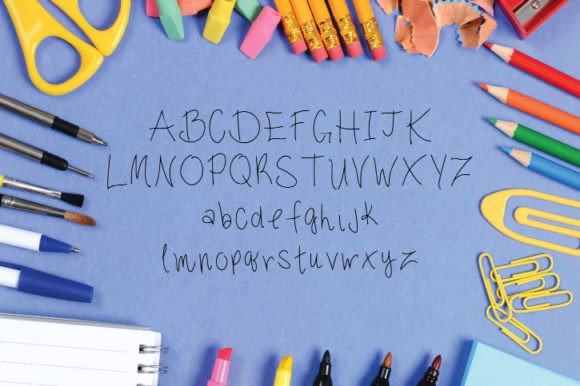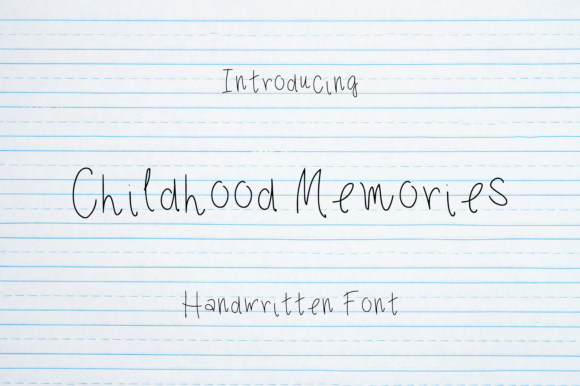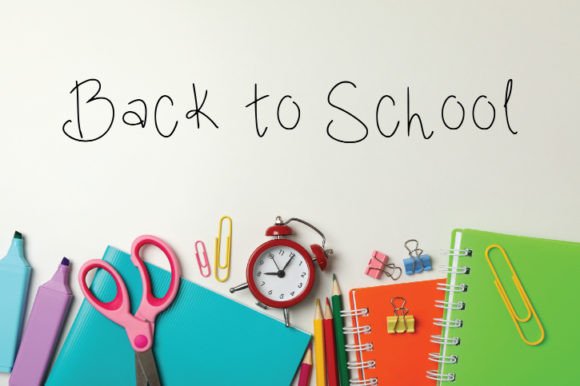
Childhood Memories Font
Childhood Memories Font – Playful and Quirky Typeface
The Childhood Memories Font is a simple, fun, and quirky handwritten typeface designed to capture the playful charm of childhood. Its open-spaced characters resemble the look of a child learning to write, adding a whimsical and authentic style to your projects. Whether you’re creating school materials, posters, or educational designs, this font brings a sweet and creative touch.
A Handwritten Font with Childlike Charm
The Childhood Memories Font blends quirky handwritten shapes with a sense of innocence. Its whimsical flow makes it unique, while its clarity ensures it is easy to read. Because of this balance, it is ideal for educational projects as well as fun personal designs.
Perfect for Teachers and Educational Projects
One of the most popular uses of the Childhood MemoriesFont is in teaching materials, posters, and children’s books. Its playful style captures the imagination of young learners. At the same time, it is excellent for worksheets, classroom decorations, and presentations, making learning materials more engaging.
The Childhood Memories Font isn’t limited to education. It adapts beautifully to posters, greeting cards, and social media graphics. From children’s clothing labels to playful event invitations, its childlike design brings warmth and creativity to any setting.
Why Designers Love Childhood Memories Font
Designers and educators appreciate the Childhood MemoriesFont for its unique mix of whimsy and practicality. It is playful enough to delight children while remaining clear and legible for learning purposes. This balance makes it a valuable choice for both classrooms and creative projects.
In summary, the Childhood MemoriesFont is a quirky, simple, and versatile handwritten typeface. With its childlike strokes, quick installation, and wide usability, it is perfect for teachers, students, posters, and playful creative work. Don’t miss the chance to download Childhood MemoriesFont and add whimsy to your designs.